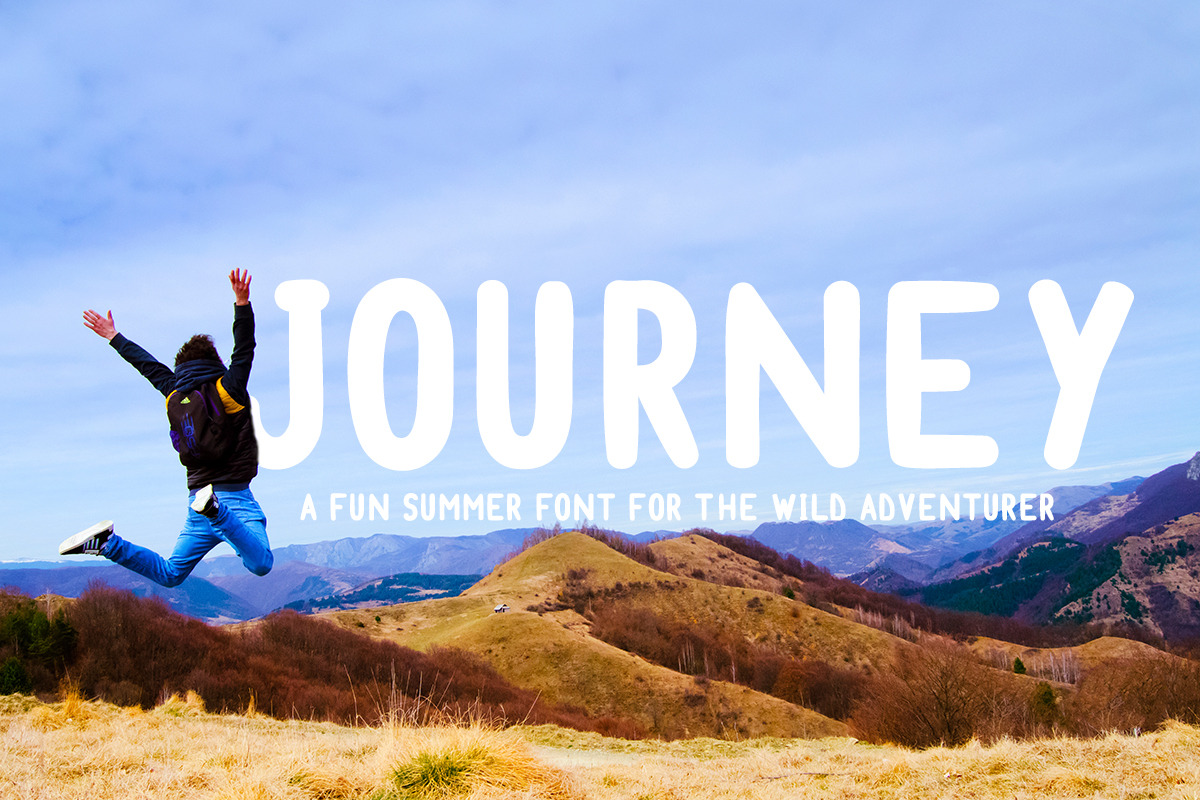
Journey - Handmade Font
Journey is a hand made font targeting travelers. The font is created to be used for Titles, Logos, Headers, Prints, Quotes and many other possibilities.